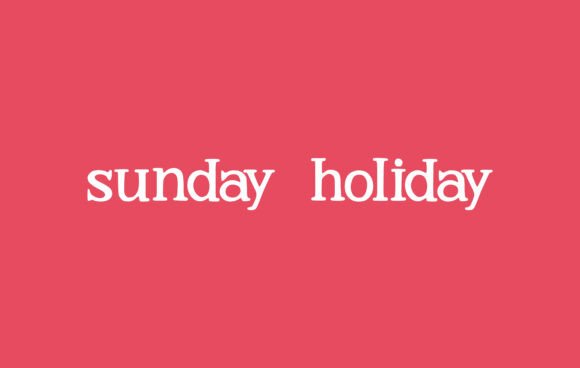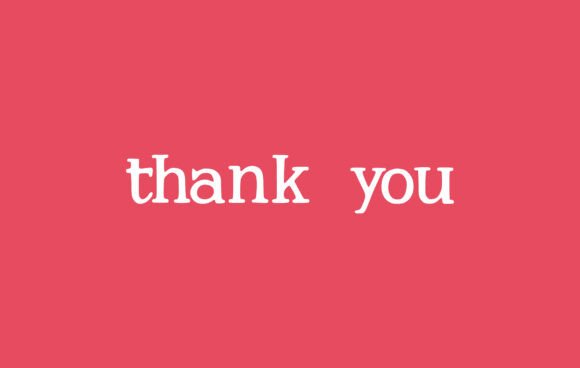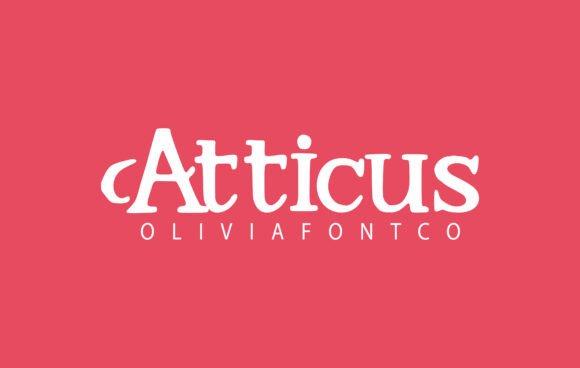
Discover the Charm of Atticus Font: Elevate Your Designs with a Romantic Touch
In the world of typography, a good font can make all the difference in bringing your creative ideas to life. If you’re a designer, crafty enthusiast, or simply someone who appreciates the art of beautiful writing, then you’re in for a treat. Introducing Atticus Font, an authentic handwritten font that exudes a romantic touch, perfect for taking your designs to new heights.
What Makes Atticus Font Special?
Atticus Font is expertly designed to capture the hearts of designers and crafters alike. Its unique, handwritten style is not only visually stunning but also highly legible, making it an excellent choice for both title and body text. Whether you’re working on a magazine headline, social media post, branding project, wedding invitation, or card, Atticus Font is the perfect companion to help you convey your message with elegance and sophistication.
Key Features of Atticus Font
- Authentic Handwritten Style: Atticus Font boasts an authentic, handcrafted look that adds a personal touch to any design.
- Romantic Touch: Its elegant strokes and curves bring a romantic feel to your projects, ideal for wedding-related designs, Valentine’s Day promotions, or any project that requires a touch of love.
- High Legibility: Despite its artistic nature, Atticus Font remains highly legible, ensuring your message is conveyed clearly and effectively.
- Versatility: From magazine headlines and social media graphics to branding, wedding invitations, and greeting cards, Atticus Font is versatile enough to fit a wide range of design needs.
How to Use Atticus Font in Your Designs
Integrating Atticus Font into your projects is straightforward, thanks to its compatibility with various design software and platforms. Here are a few ideas to get you started:
- Wedding and Event Planning: Use Atticus Font for wedding invitations, save-the-date cards, and event banners to set a romantic tone.
- Social Media Graphics: Stand out on social media with eye-catching graphics featuring Atticus Font. It’s perfect for quotes, announcements, and promotional posts.
- Branding and Packaging: Add a personal and elegant touch to your brand’s packaging, labels, and marketing materials.
- Magazine and Blog Design: Use Atticus Font for article titles, headings, and even body text to give your publication a unique and captivating look.
Tips for Maximizing Atticus Font’s Potential
To get the most out of Atticus Font, consider the following tips:
- Experiment with Colors: Play around with different colors to find the perfect match that enhances the romantic feel of the font.
- Mix and Match: Combine Atticus Font with other fonts to create contrast and add depth to your designs.
- Pay Attention to Spacing: Ensure adequate spacing between letters and lines to maintain readability and aesthetic appeal.
Atticus Font is more than just a typeface; it’s a tool for creativity, a means to convey emotion, and a way to elevate your designs. With its authentic handwritten style, romantic touch, and high legibility, it’s an excellent addition to any designer’s toolkit. Whether you’re working on a professional project or a personal craft, Atticus Font is sure to inspire and help you achieve your creative goals. So, why wait? Dive into the world of Atticus Font today and discover a new level of design excellence.